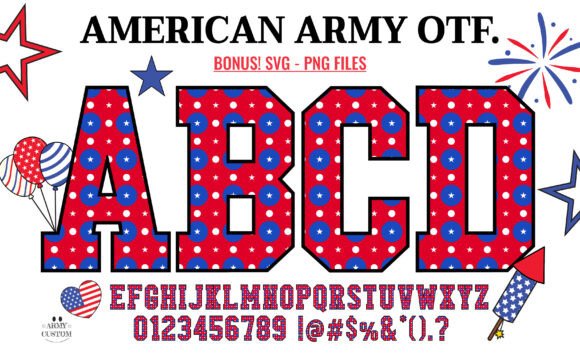
Unleash the Spirit of Patriotism with the American Army Font
As the world prepares to commemorate Memorial Day, a day dedicated to honoring the brave men and women who have served in the United States Armed Forces, designers and crafters are on the lookout for creative ways to express their patriotism. If you’re looking to infuse your projects with a touch of American spirit, look no further than the American Army Font. This stunning font is a masterpiece of typography that embodies the essence of American aesthetics, making it the perfect addition to your creative arsenal.
The Inspiration Behind the American Army Font
The American Army Font is more than just a collection of letters and symbols; it’s a tribute to the heart of the United States. Inspired by the country’s rich history, vibrant culture, and unwavering patriotism, this font is designed to evoke the sense of freedom and courage that defines America. Every curve, every line, and every detail has been carefully crafted to reflect the country’s iconic style, from the bold and majestic monuments to the humble and rustic road signs.
A Font that Embodies American Charm
What sets the American Army Font apart is its unique blend of classic and modern elements. The font’s design is rooted in traditional American typography, with clean lines, simple shapes, and a bold, confident style that’s instantly recognizable. At the same time, the font has a fresh, contemporary feel that’s perfect for modern design projects. Whether you’re creating a logo, a poster, or a DIY craft, the American Army Font is sure to add a touch of American charm that’s hard to resist.
Uses for the American Army Font
So, how can you use the American Army Font in your creative projects? The possibilities are endless! Here are a few ideas to get you started:
- Memorial Day and Fourth of July celebrations: Create eye-catching posters, banners, and decorations that showcase your patriotism and add to the festive atmosphere.
- American-themed crafts: Use the font to add a personal touch to your DIY projects, such as customized t-shirts, tote bags, and signs.
- Branding and logos: Incorporate the American Army Font into your business’s branding and logo design to convey a sense of American values and pride.
- Social media graphics: Create engaging social media graphics, such as Facebook posts and Instagram stories, that showcase your patriotism and creativity.
Why Choose the American Army Font?
With so many fonts available, why choose the American Army Font? Here are just a few reasons why this font stands out:
- Unique design: The American Army Font is a one-of-a-kind design that’s sure to set your projects apart from the crowd.
- High-quality typography: The font is meticulously crafted to ensure that every letter and symbol is clear, legible, and visually appealing.
- Patriotic spirit: The American Army Font is more than just a font – it’s a way to express your patriotism and connect with the American spirit.